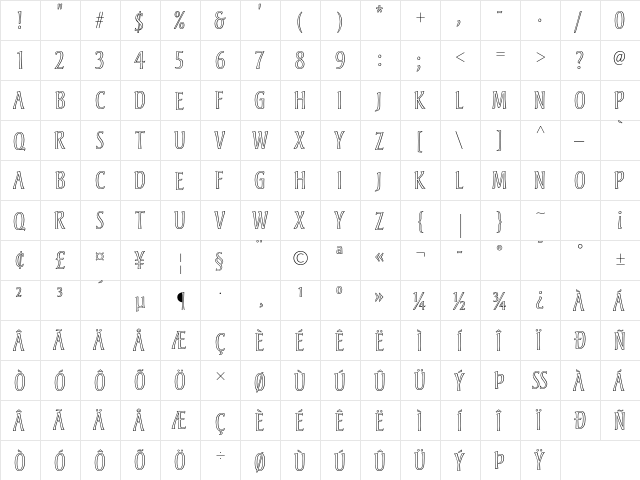
Andreas Std Regular
| Designer | Michael Harvey |
Design Context for Andreas Std Typeface
Andreas Std offers clean, dependable letterforms without strong stylistic allegiance, making it a practical choice for designers who need flexibility.